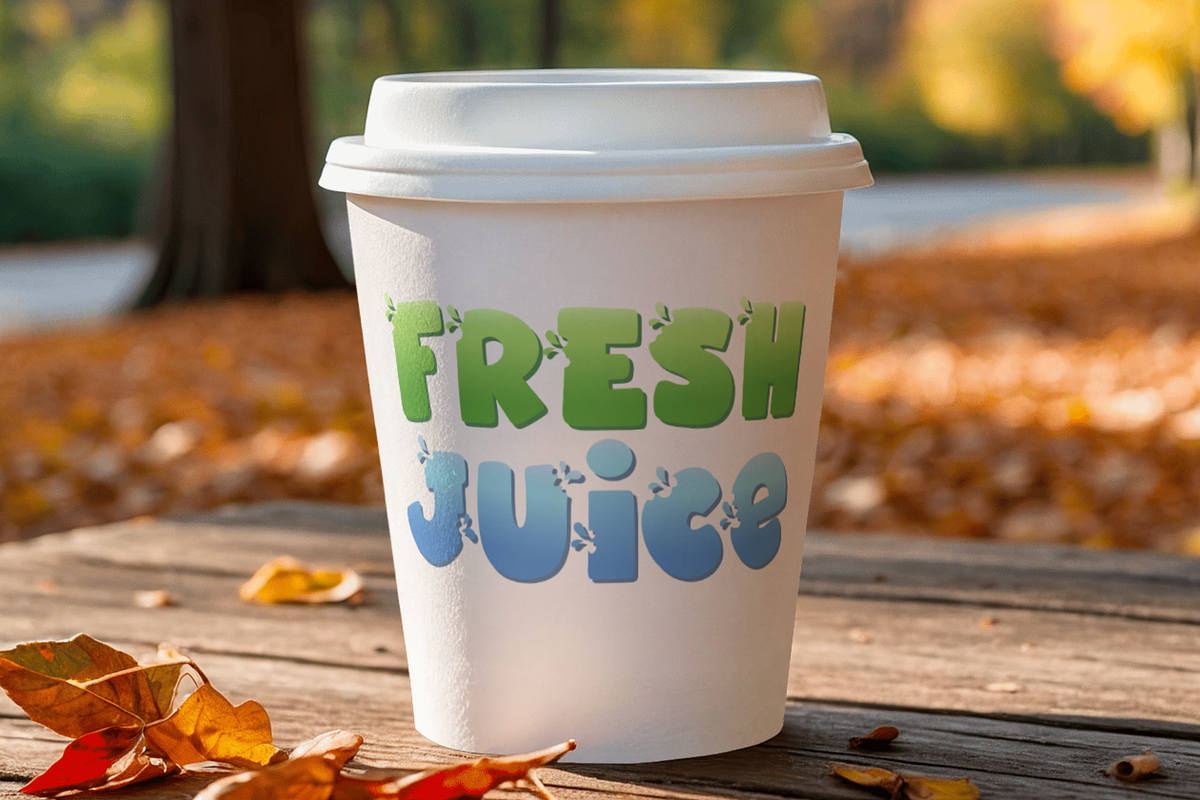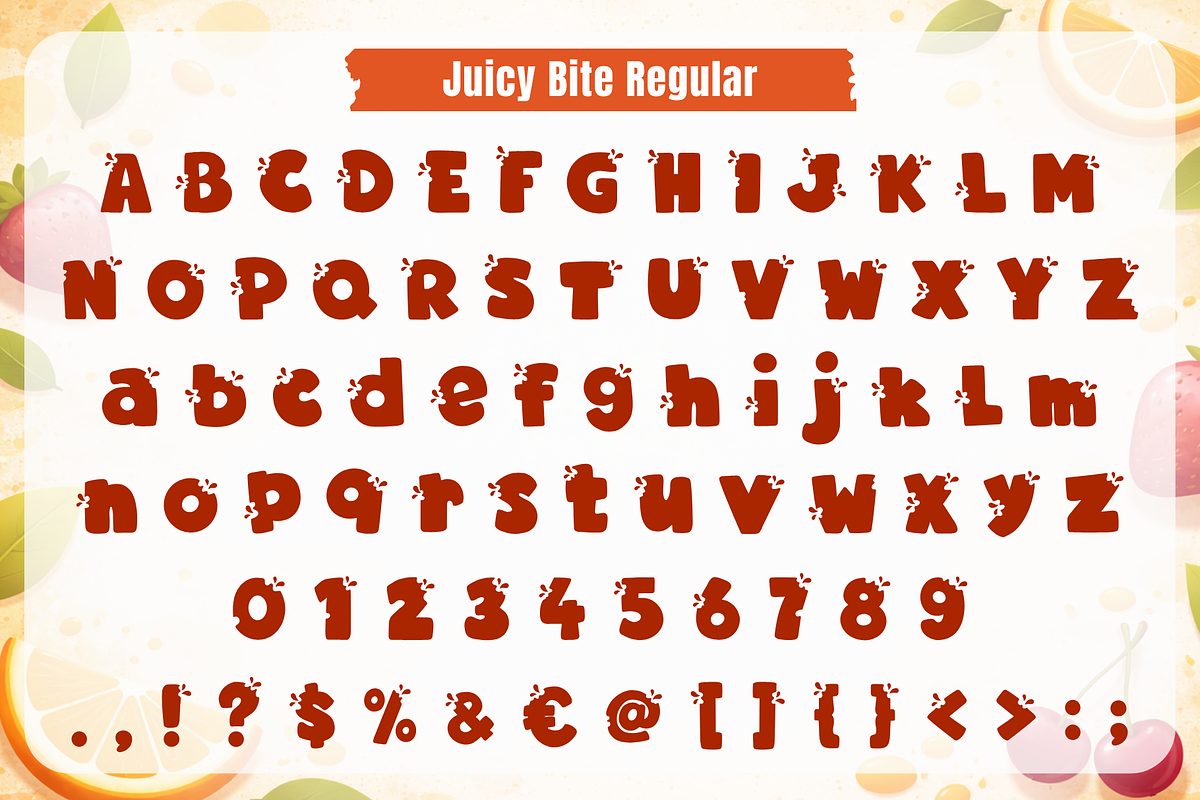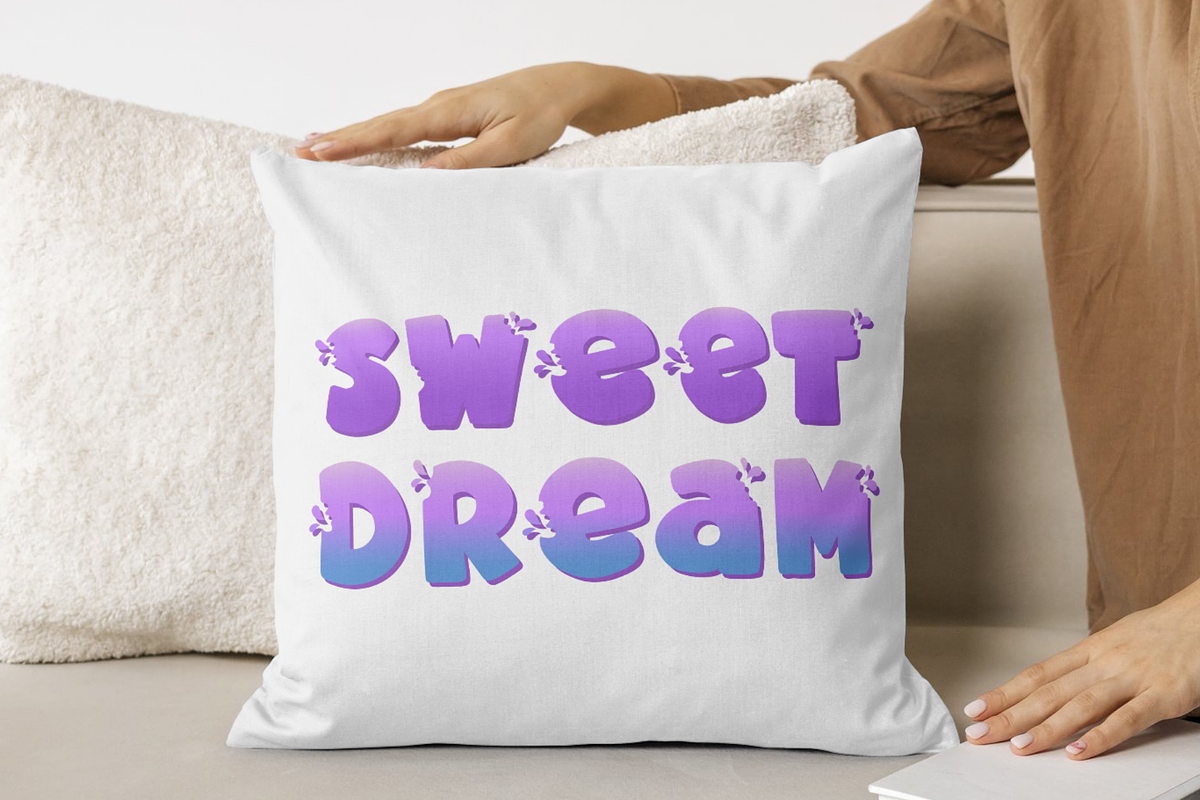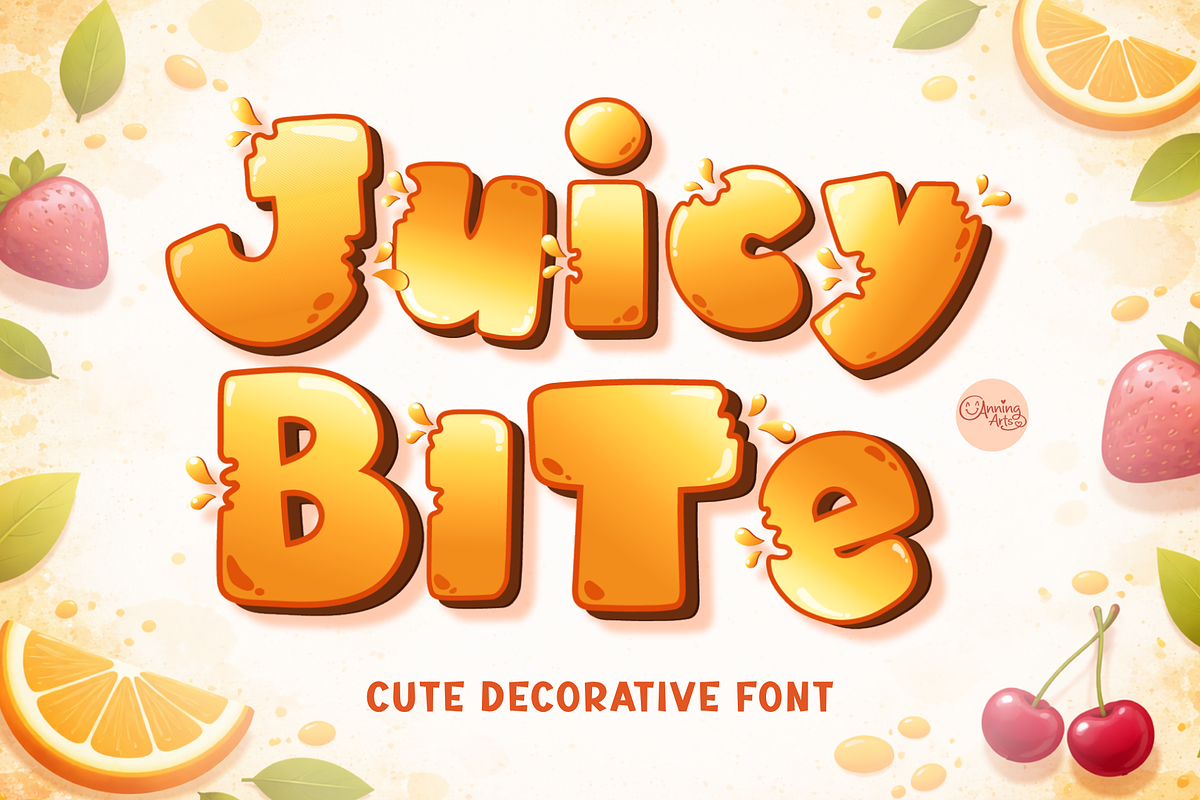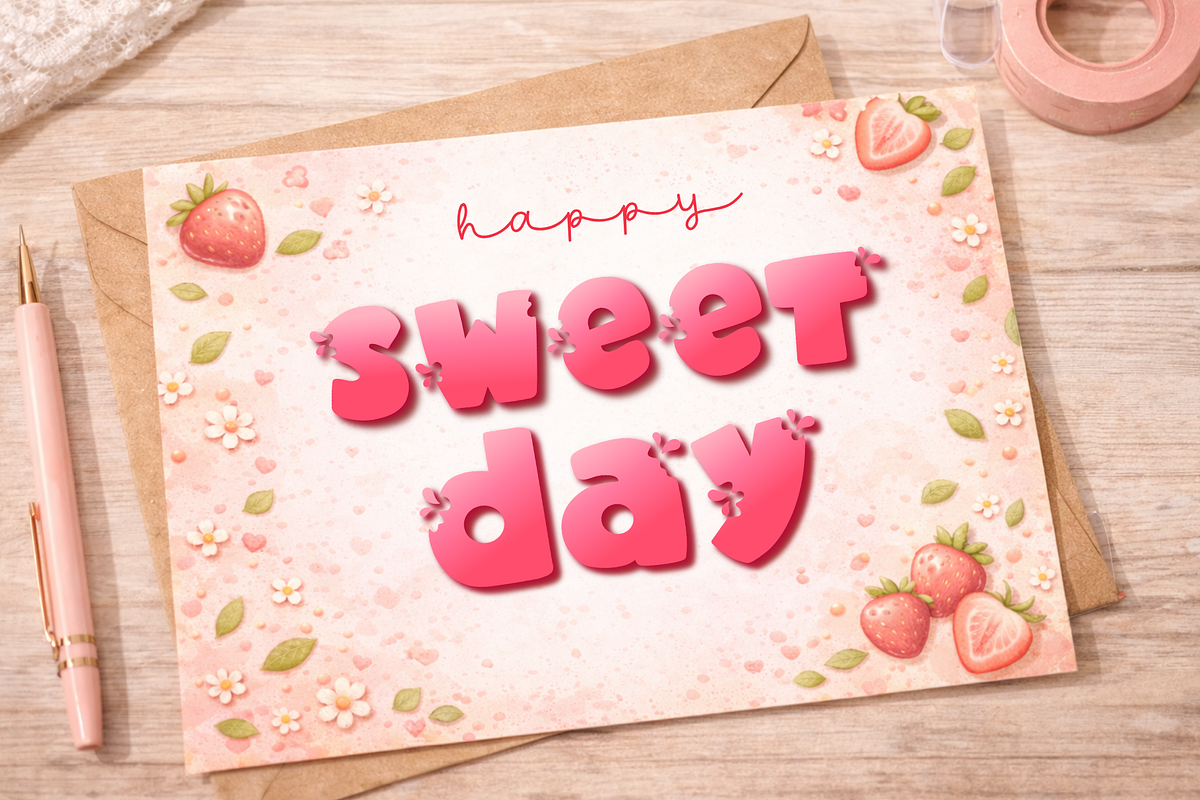
Juicy Bite – Cute Decorative Font
Juicy Bite is a cute and playful decorative font inspired by fresh fruits and juicy splashes. Featuring bold rounded letterforms with fun bite marks and splash details, this font brings a sweet, energetic vibe to any design. Perfect for summer projects, kids designs, branding, packaging, stickers, t-shirts, greeting cards, and more. Its chunky and friendly style makes it easy to read while still standing out with a unique handcrafted look.
Whether you're creating fruity themes, sweet shop branding, or fun typography for children, Juicy Bite adds a delightful pop of personality to your work.